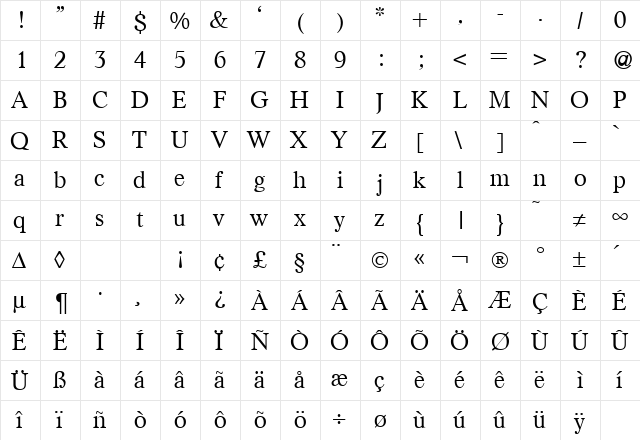
Ligature Regular
Design Context for Ligature Typeface
Ligature offers clean, dependable letterforms without strong stylistic allegiance, making it a practical choice for designers who need flexibility.